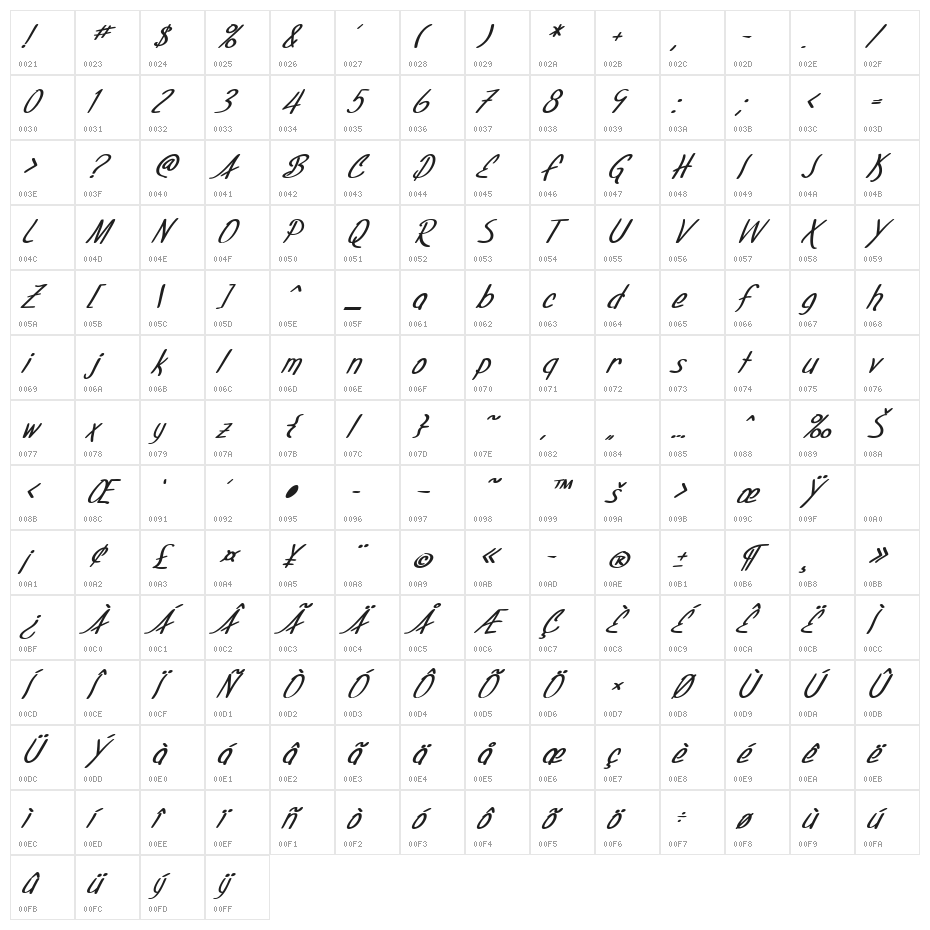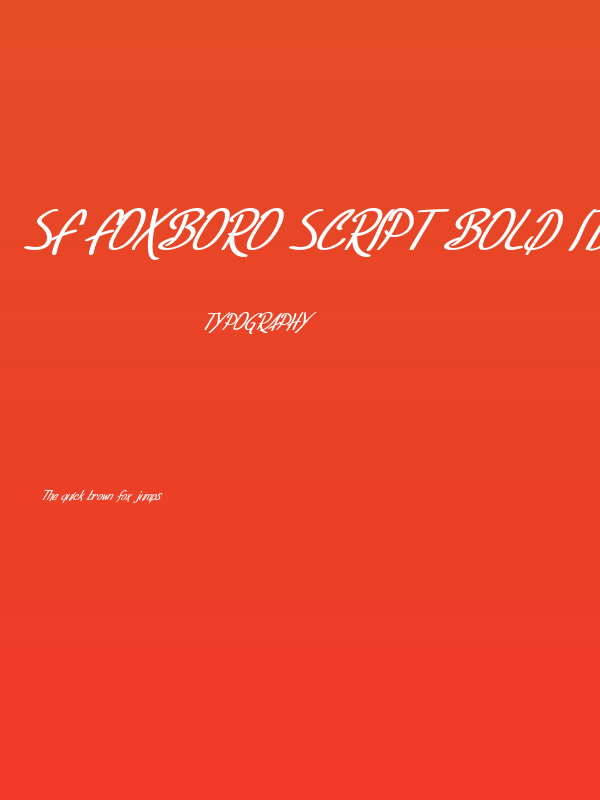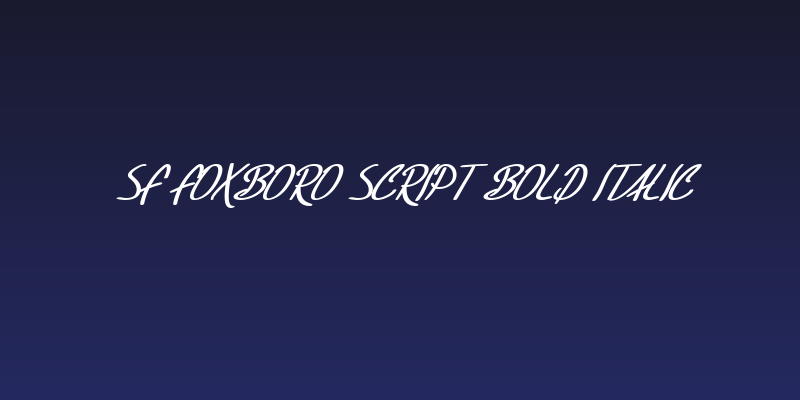
SF Foxboro Script Bold Italic Font
SF Foxboro Script Bold Italic Description
This font features a dynamic and flowing script style, characterized by its bold and italicized appearance. The letters are connected in a cursive manner, giving it a handwritten feel. The strokes are thick and consistent, providing a strong visual impact. The uppercase letters are elegant and slightly slanted, while the lowercase letters maintain a smooth and cohesive flow. The numerals and special characters are designed to match the overall script style, ensuring uniformity across all characters.
| Proposed Projects | Ideal for wedding invitations, greeting cards, branding projects, and any design that requires an elegant, personal touch. |